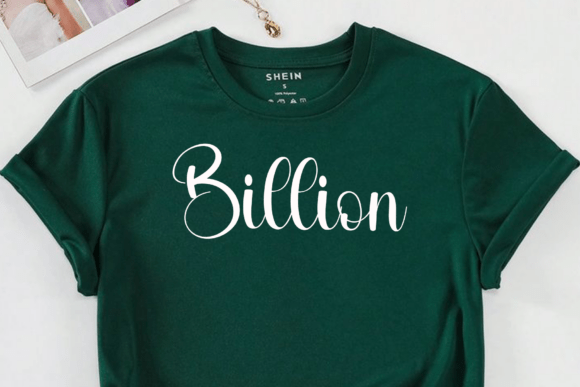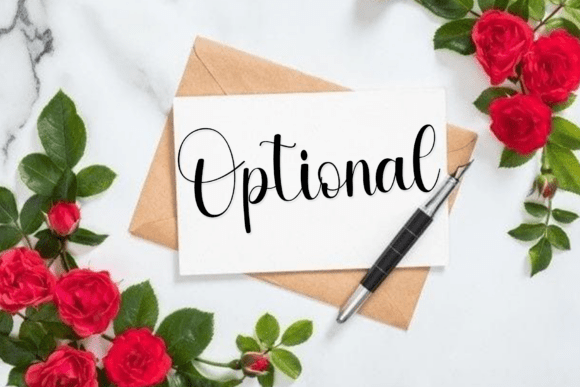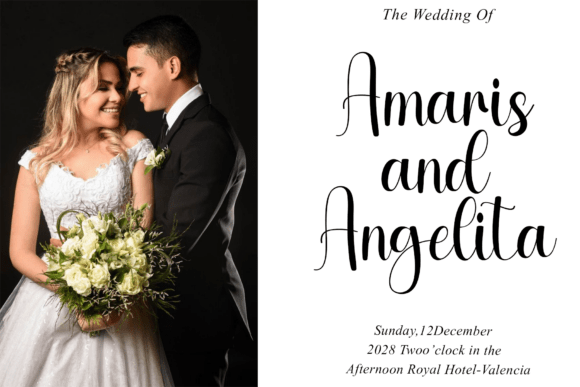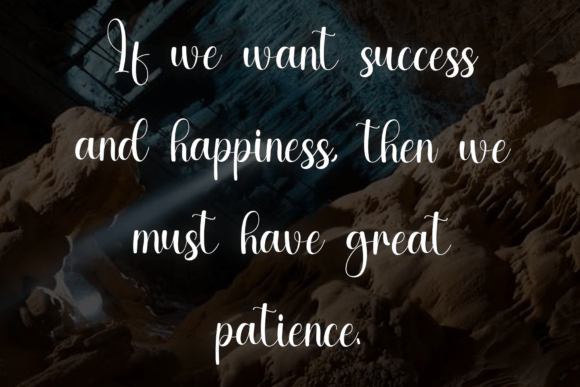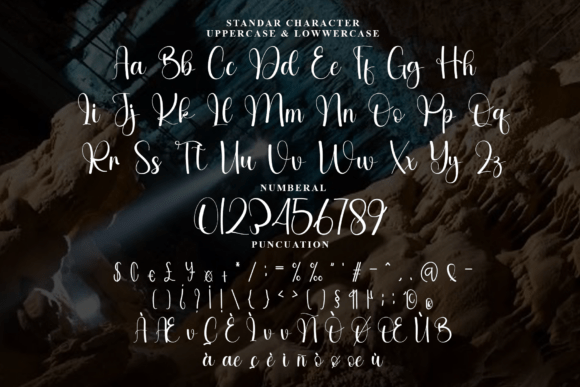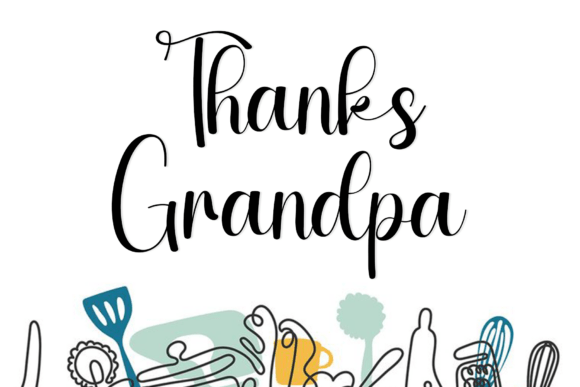
Introduction to Kitchen Quote Font
Kitchen Quote is a sophisticated and rhythmic script font that embodies a “unique and professional” autumnal visual voice.
As part of a modern handwritten collection, it features high-contrast strokes with thick, grounded downstrokes and delicate hairline connectors The typeface is characterized by vertically elongated letterforms and graceful, looping ascenders that mimic high-end inkwork.
Key Features of Kitchen Quote Font